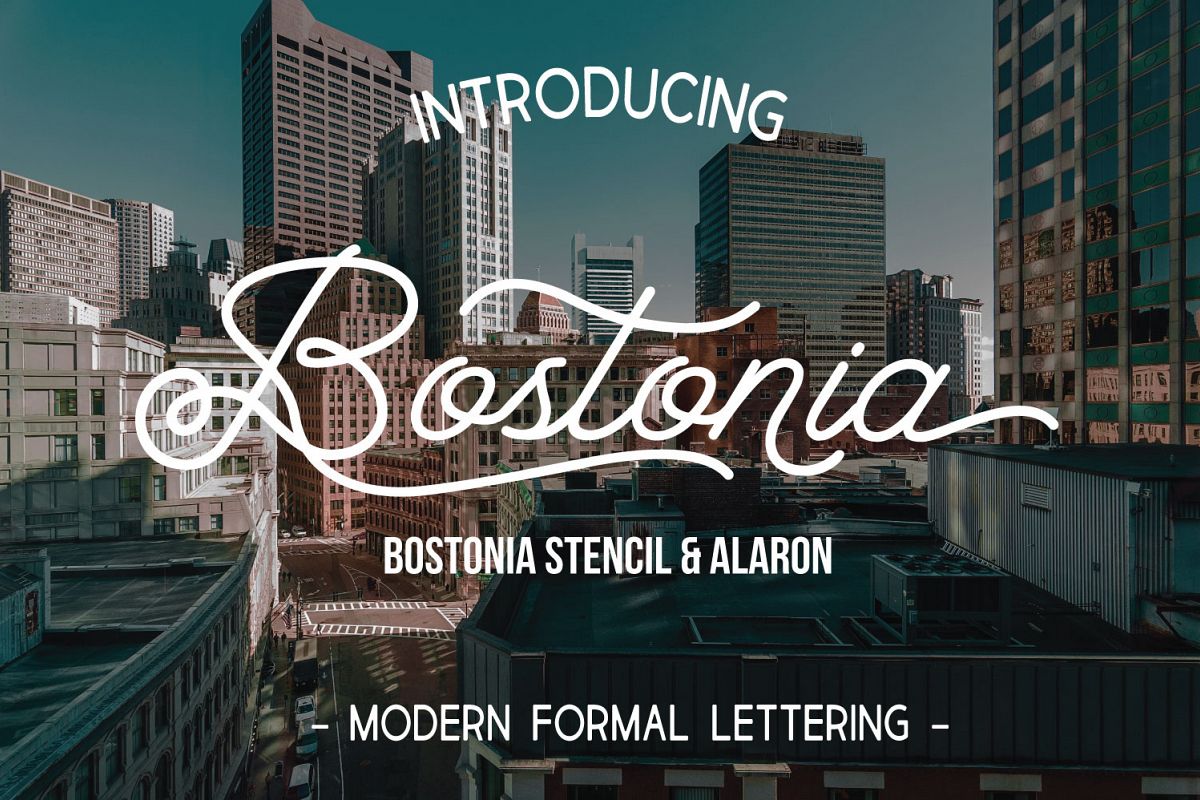
Bostonia
Bostonia (30% Off)"Introducing "Bostonia" a Modern Formal Lettering Script Font. Bonus Bostonia Stencil Version and Alaron Font.
Bostonia Suitable for any design needs : branding, logos, handwritten quotes, product packaging, merchandise, blog design, modern advertising design, invitation, Art Quote, Home decor, Book/Cover Title, Invitation, special events, birthday, custom mug, and many more.
• Bostonia .otf .ttf - a formal lettering font, who has 493 Glyphs
• Bostonia Stencil .otf .ttf  - a formal lettering font with alternative stencil version and also has 493 Glyphs
• Alaron .otf .ttf  - an alternative regular font who has alternate characters to make good combination with Bostonia Font. Alaron Font has 107 Glyphs.